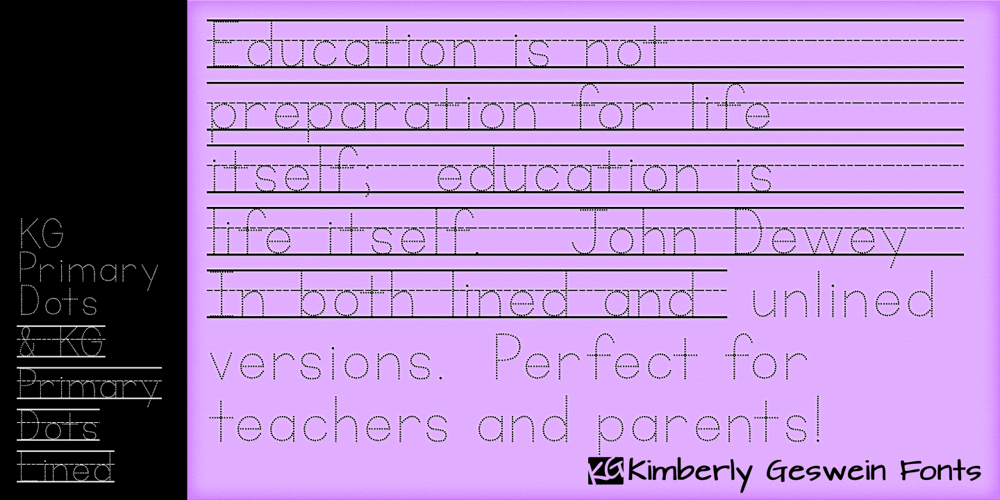
KG Primary Dots Font Family was designed by Kimberly Geswein and published by Kimberly Geswein. KG Primary Dots contains 2 styles and family package options. A dotted font perfect for teaching penmanship to students. With handwriting lines and without, perfect for making worksheets and projects for classrooms. This style matches KG Primary Penmanship, a solid version of this font.